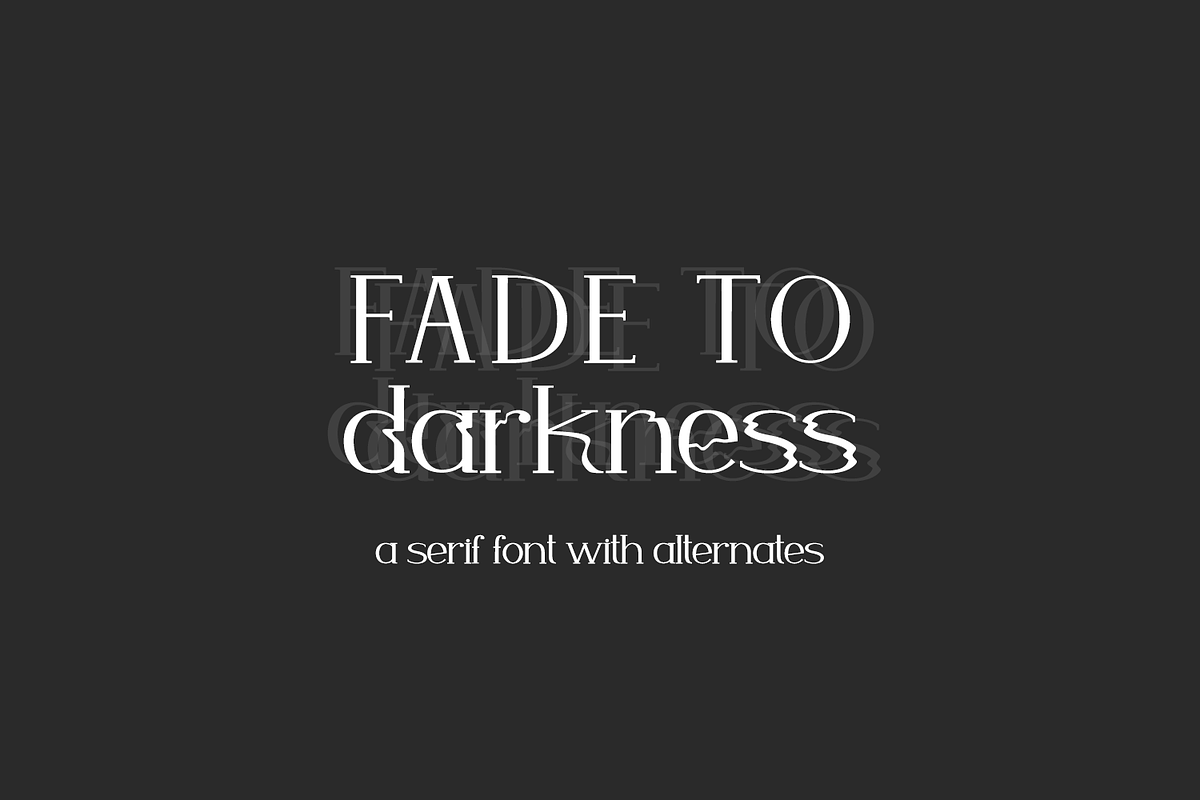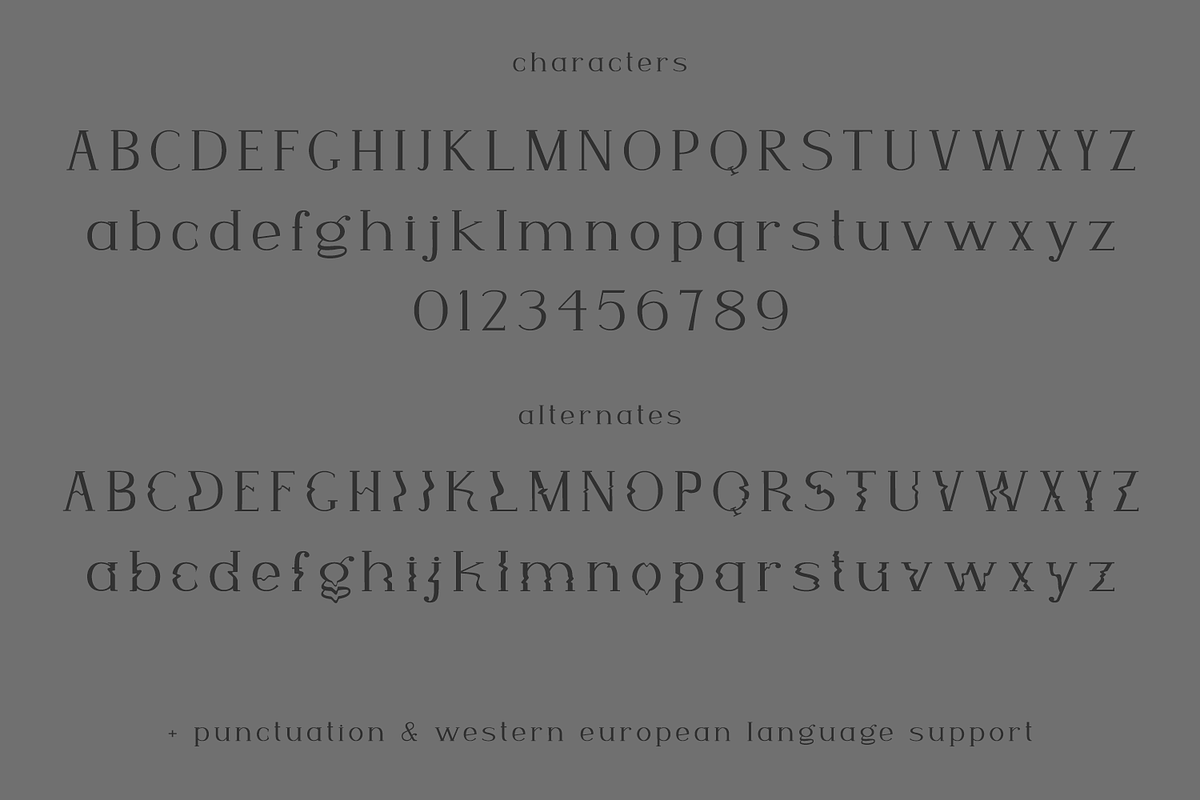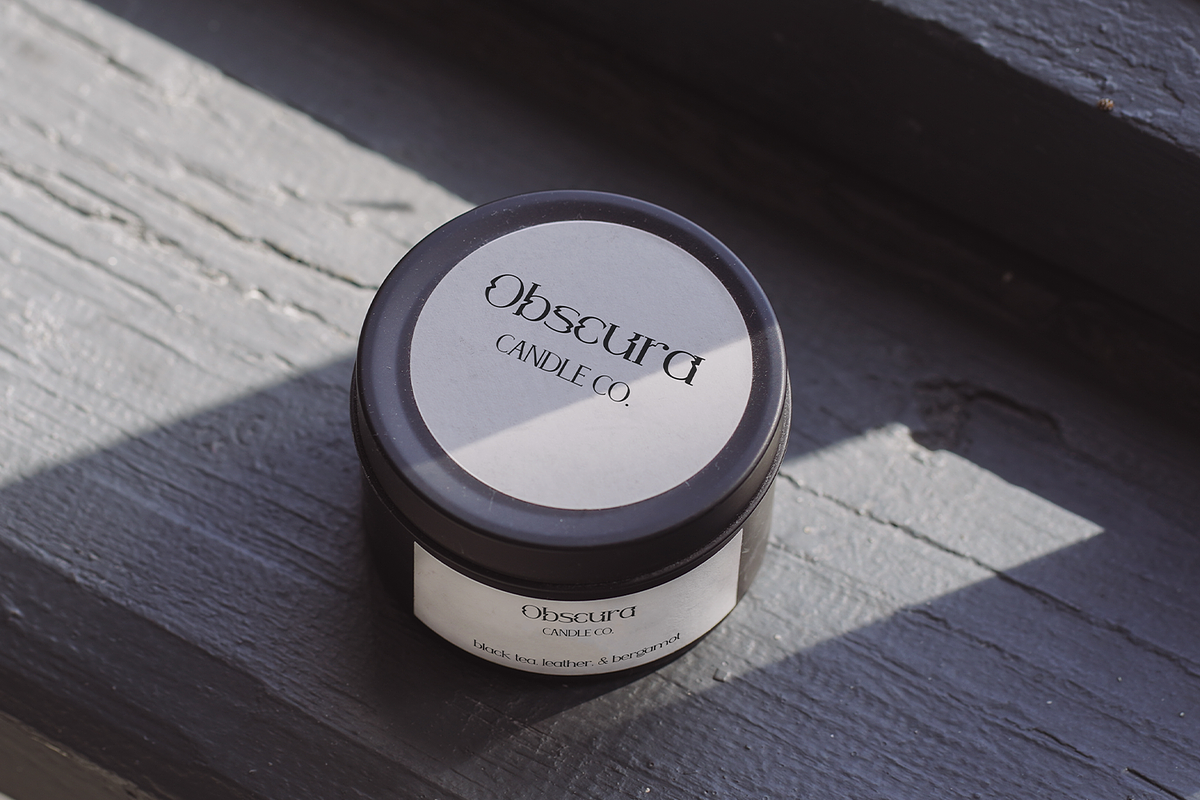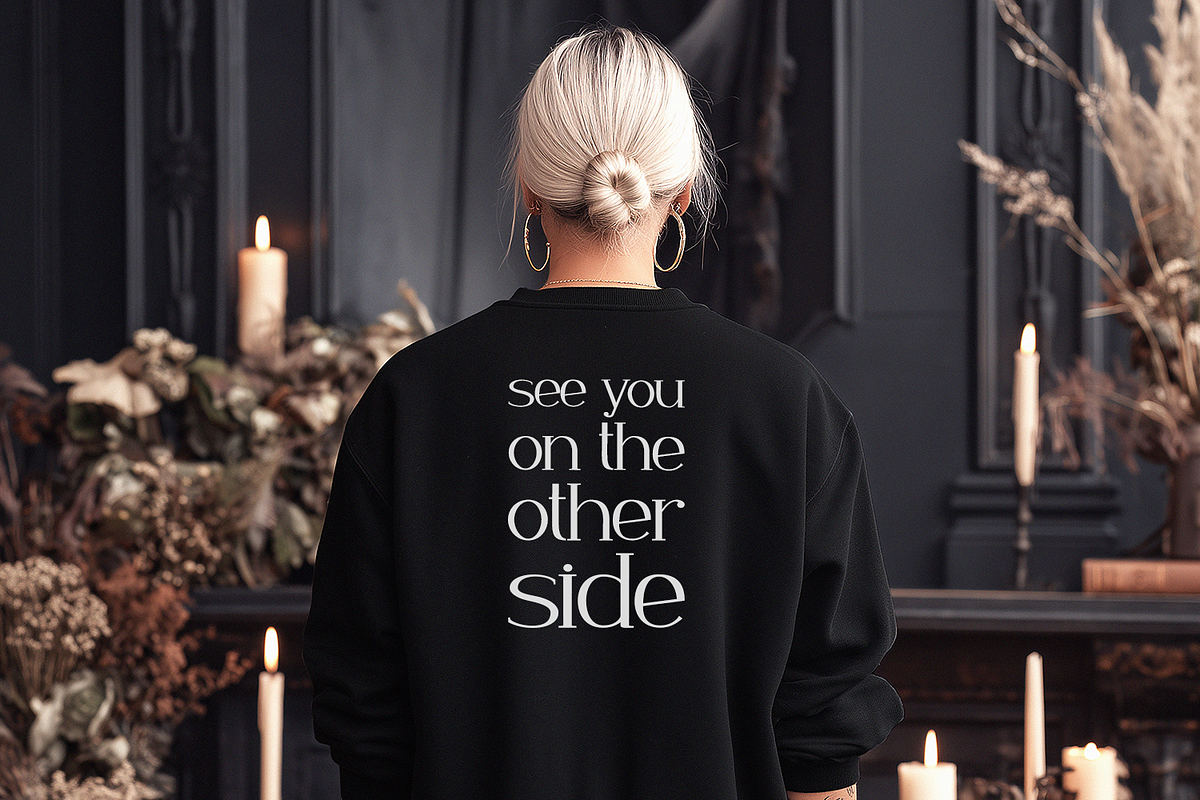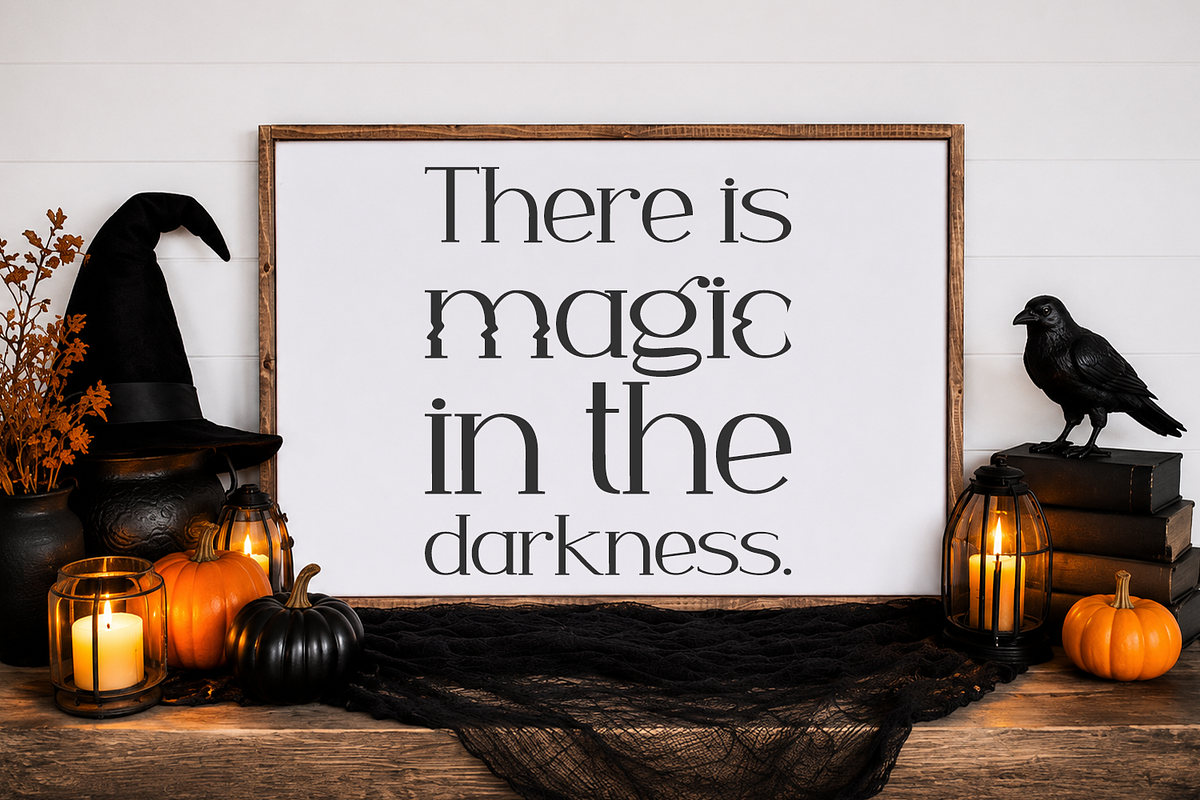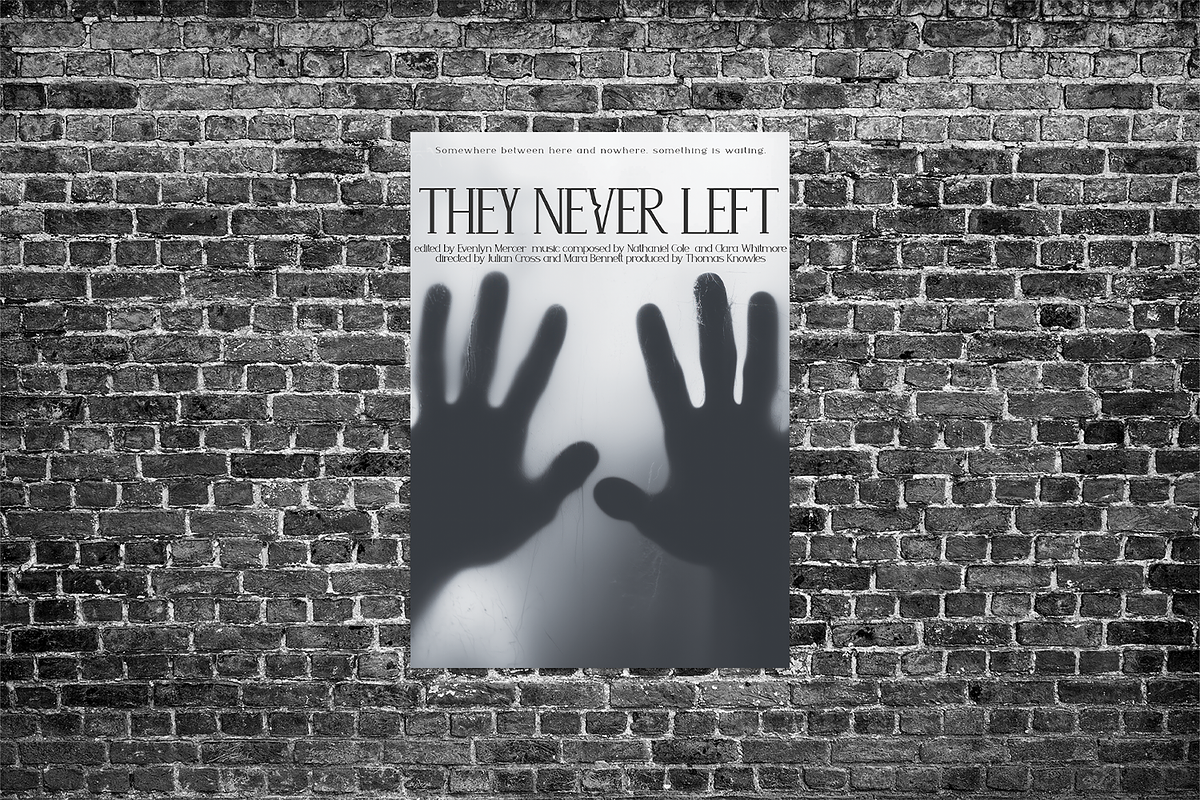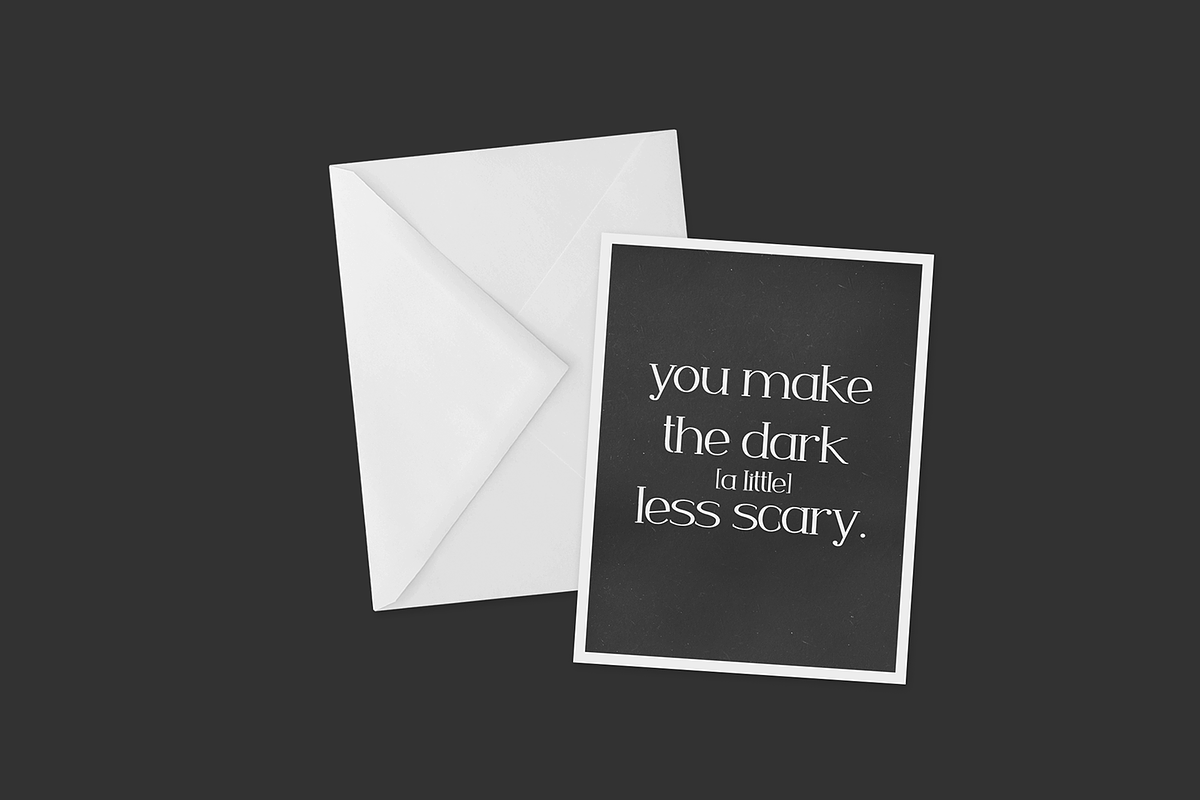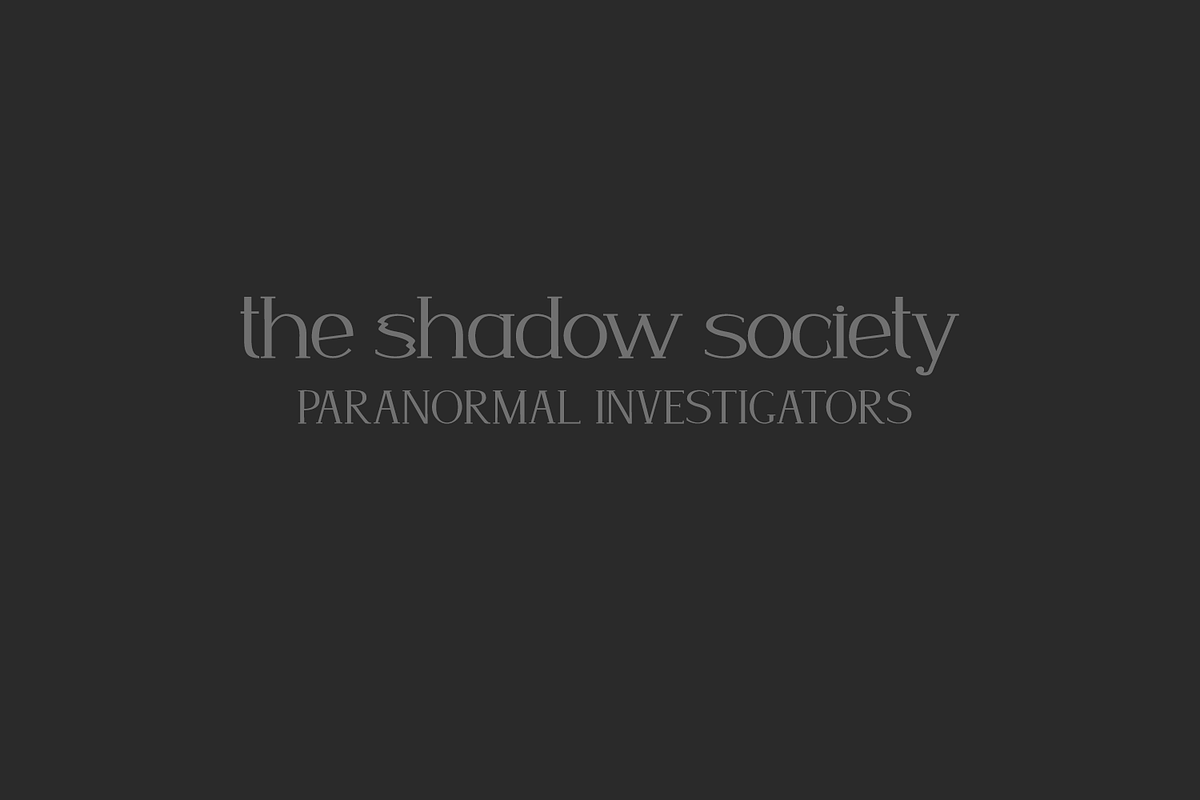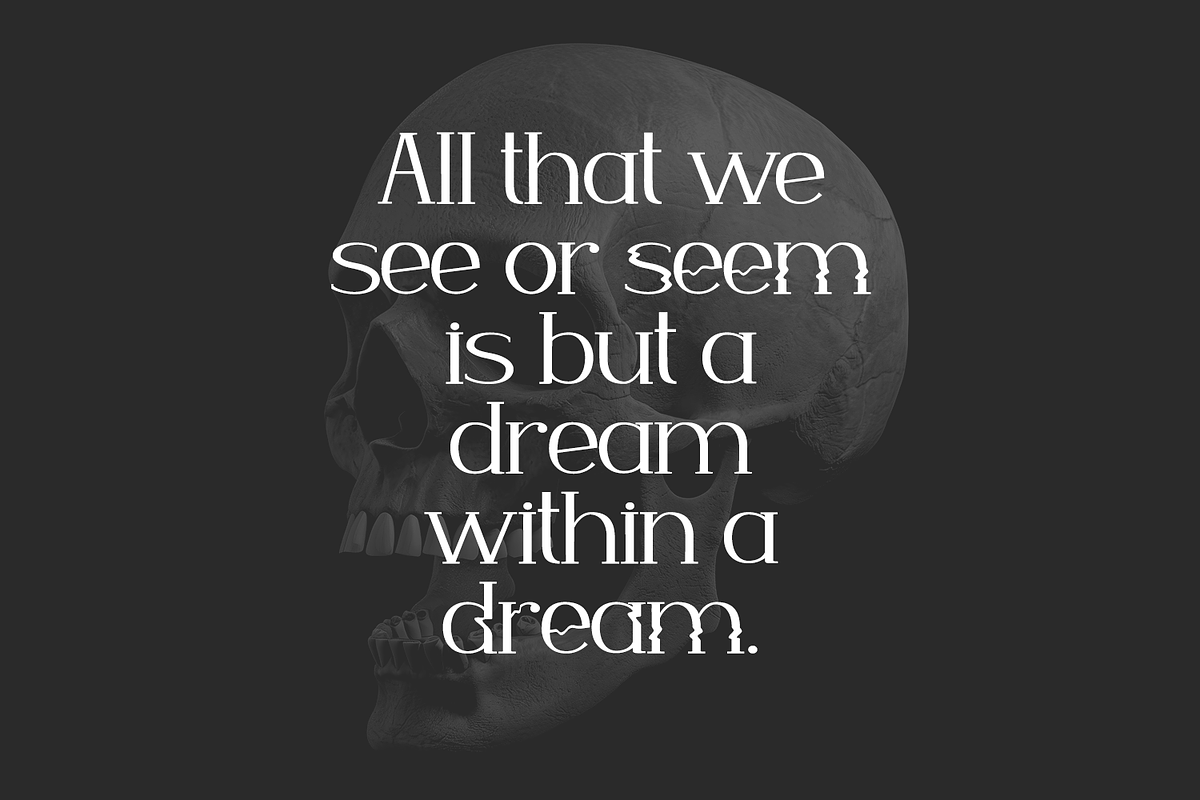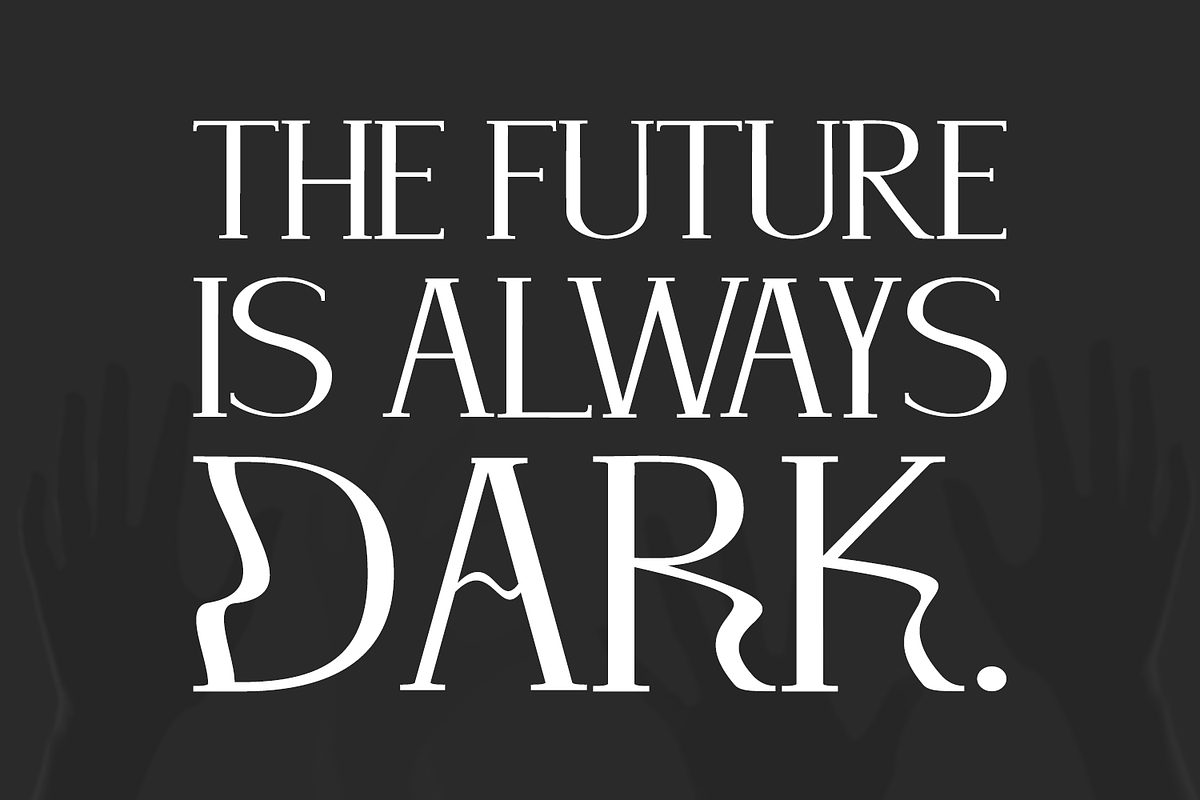
Fade to Darkness Serif
Fade to Darkness Serif is a clean & sophisticated serif on the outside…but on the inside, you’ll find eerie wavy alternates that look melty or like they’re fading away. It reminds me a bit of static, without all of the texture. This font’s versatility extends beyond Halloween because of its crisp & clean appearance: use for branding, large print design, product packaging, logos, and more. Fade to Darkness is a good fit for designers that are looking to make a Halloween-themed design that is a bit more elevated.
Fade to Darkness Serif includes:
- full upper + lowercase characters
- numbers + punctuation
- 52 wavy alternates - A-Z, a-z
- Western European language support - English, French, Spanish, Portuguese (Brazil), Portuguese (Portugal), Italian, German (Germany), German (Austria), Dutch, Danish, Swedish, Norwegian (Bokmål and Nynorsk), Finnish, Icelandic, Irish, Welsh